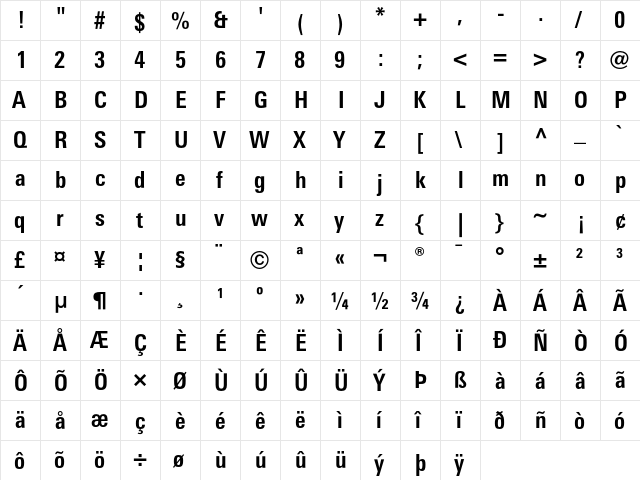
LinotypeUnivers CondBold
Design Context for LinotypeUnivers Typeface
LinotypeUnivers takes a measured approach to typography — its balanced proportions and neutral character make it a reliable workhorse for both digital and print work. Its bold stroke weight gives it real presence on the page. The condensed width makes it efficient for tight spaces without sacrificing legibility.